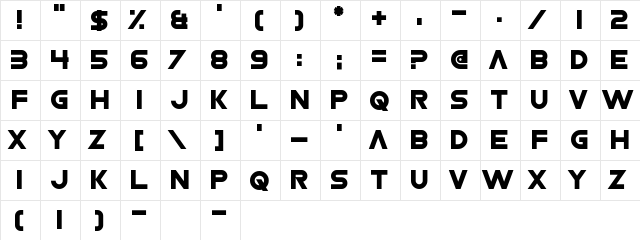
Nrvsbrkdwn Regular
| Designer | NAL |
Design Context for Nrvsbrkdwn Typeface
Nrvsbrkdwn is a composed and adaptable typeface that performs quietly and consistently across a wide range of design contexts.